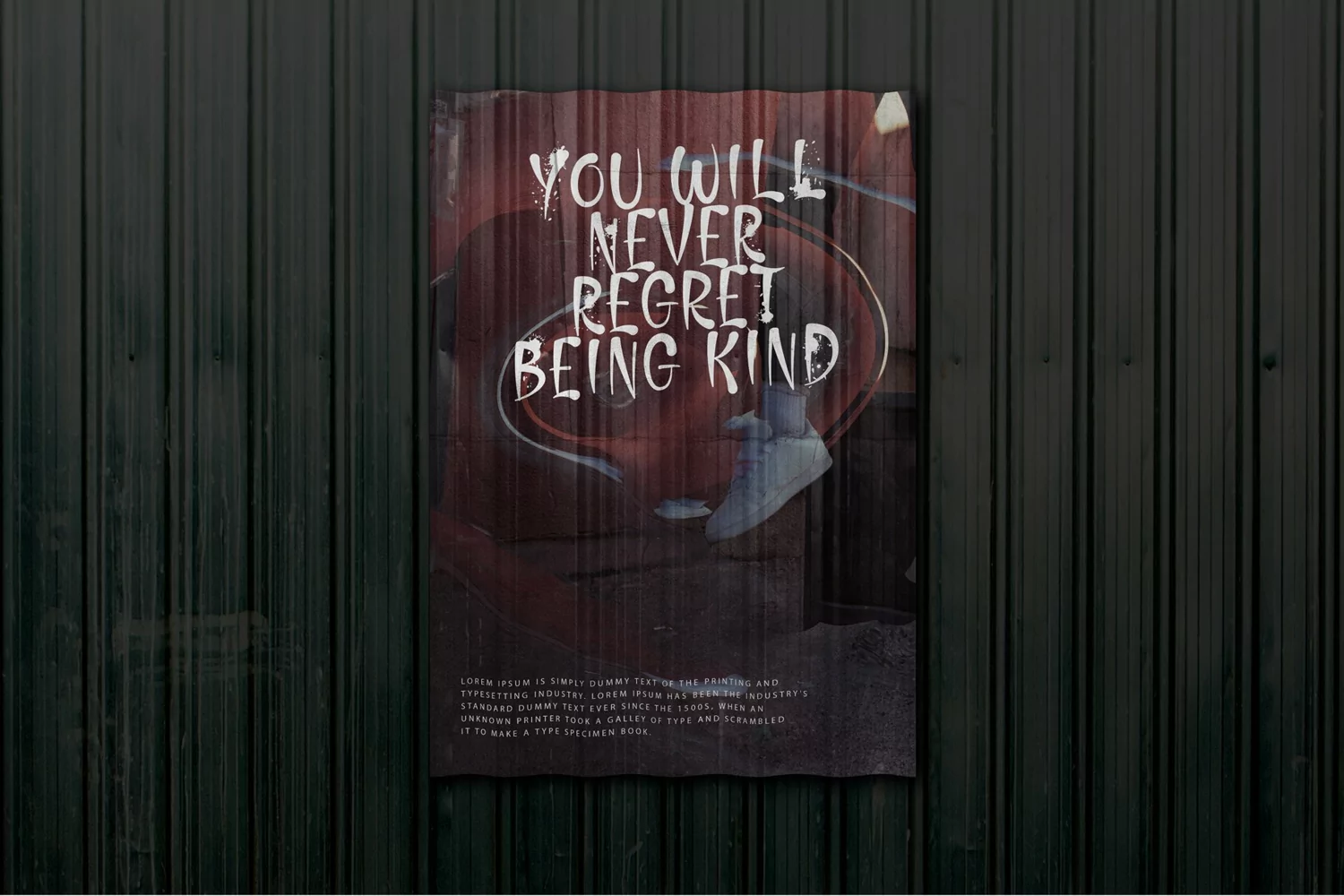
Redhanded is a display typeface and it is designed to look as though ink has been laid with splashed from the brush, giving a random, imperfect, but elegant result.